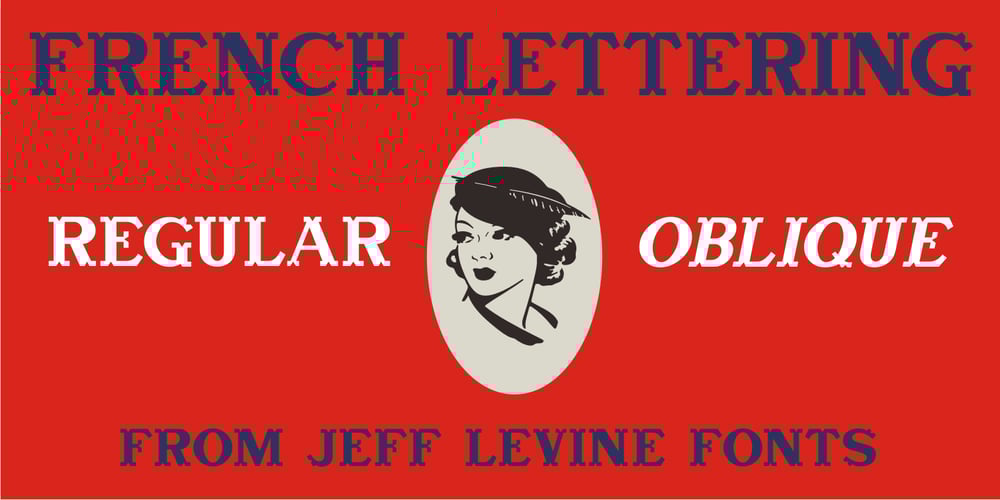
French Lettering JNL Font Family was designed by Jeff Levine and published by Jeff Levine. French Lettering JNL contains 2 styles and family package options. An example from the vintage lettering book “100 Alphabets Publicitaire” (“100 Advertising Alphabets”) provided the inspiration for French Lettering JNL. This stylized Victorian [or Western] type face evokes the era of fanciful lettering design from the late 1800s. Available in both regular and oblique versions.